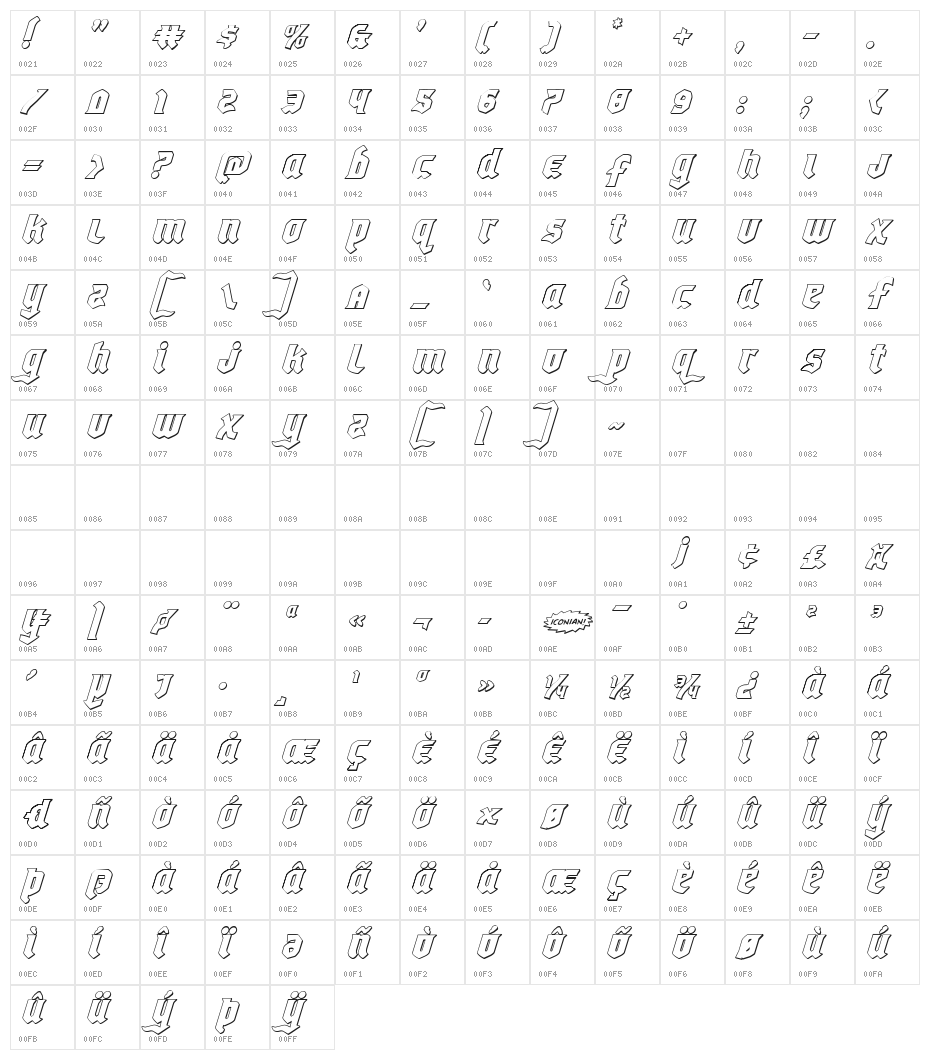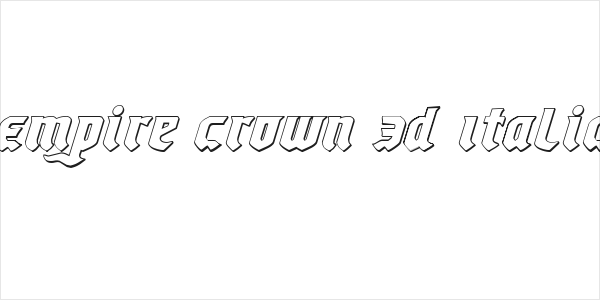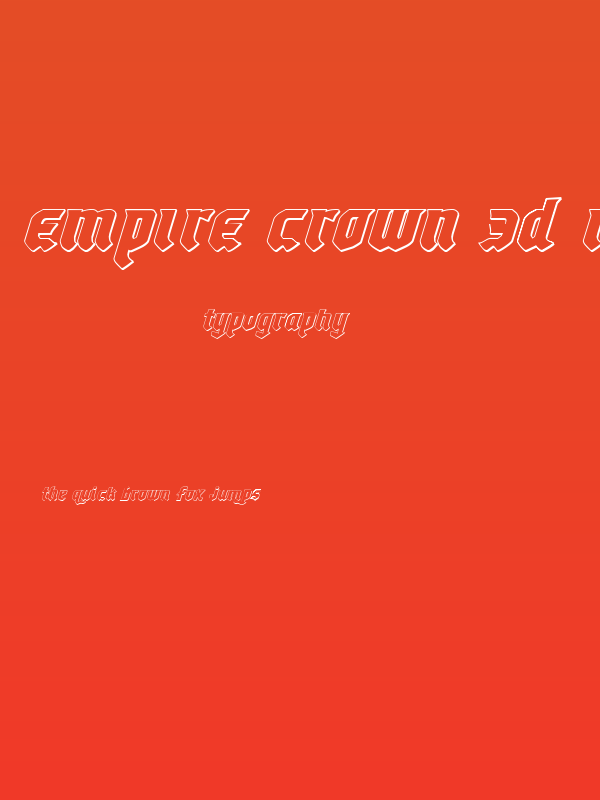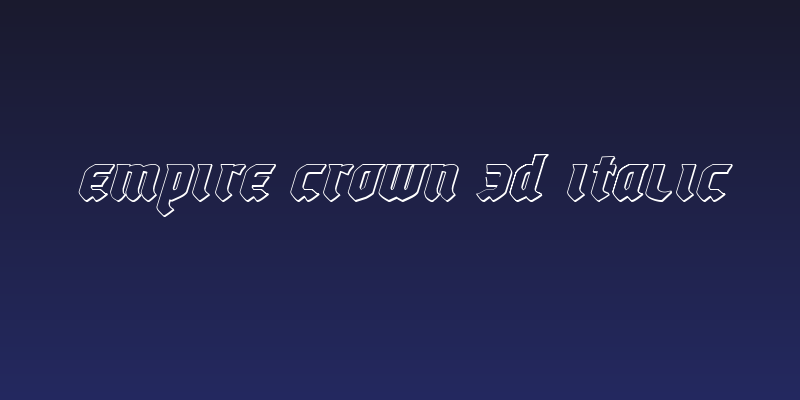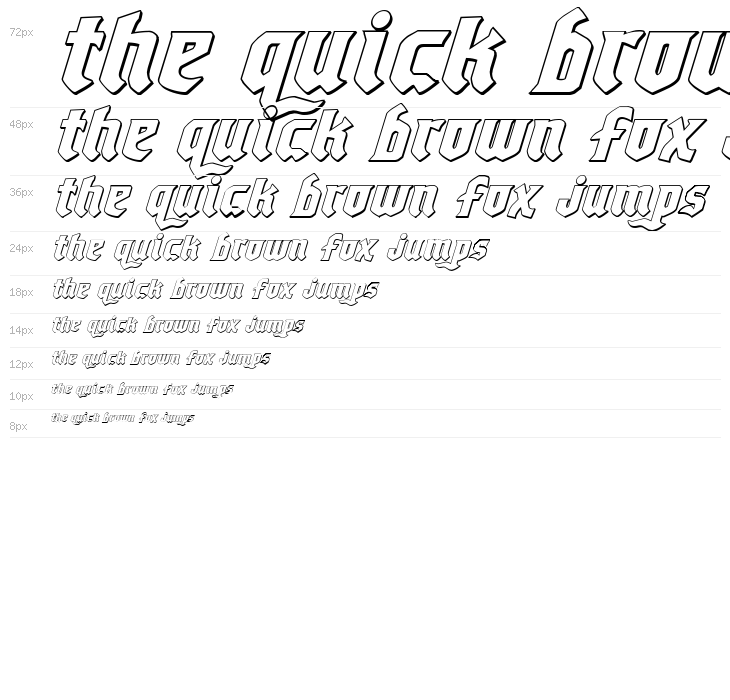
Empire Crown 3D Italic Font
Empire Crown 3D Italic Description
This font features a bold, 3D italic style with a distinct outline that gives each character a dynamic and eye-catching appearance. The letters are angular and sharp, with a slight slant that adds a sense of motion and energy. The 3D effect is achieved through a clever use of shading and perspective, making the characters appear to pop off the page. This font is highly decorative, with a unique flair that makes it suitable for attention-grabbing headlines or logos. The uppercase and lowercase letters maintain a consistent style, while the numerals and special characters complement the overall design.
| Proposed Projects | Ideal for use in logos, posters, video game titles, and any project requiring a bold, standout typeface. |